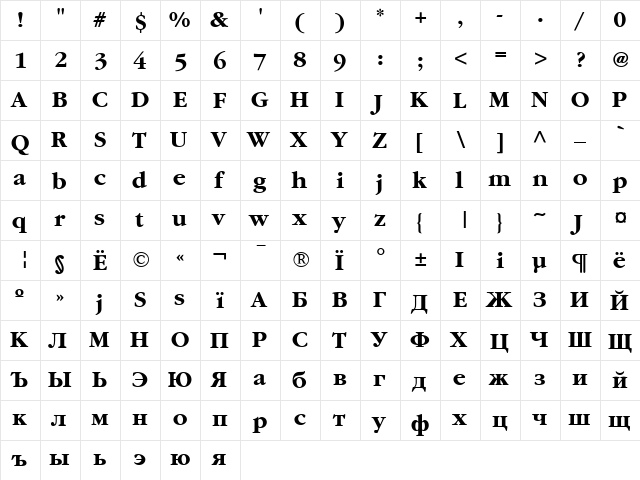
AGGaramond Cyr Bold
Design Context for AGGaramond Cyr Typeface
AGGaramond Cyr offers clean, dependable letterforms without strong stylistic allegiance, making it a practical choice for designers who need flexibility. The heavy weight commands attention and anchors typographic hierarchies.